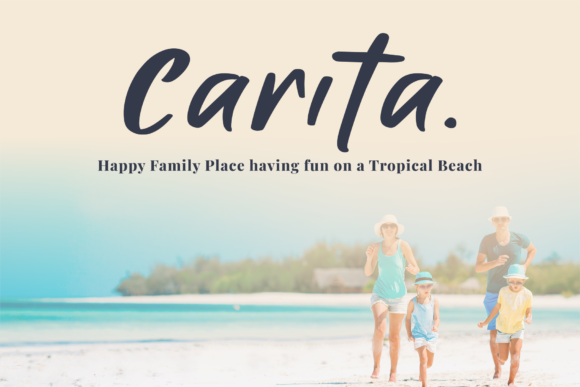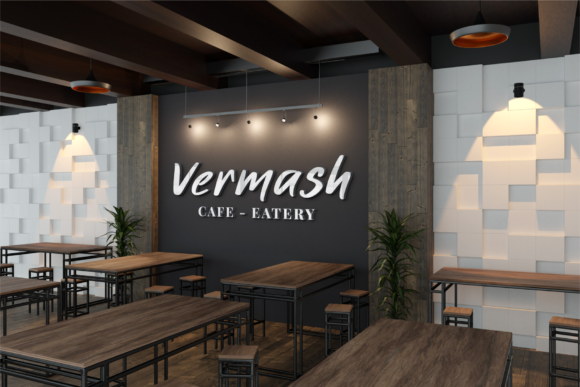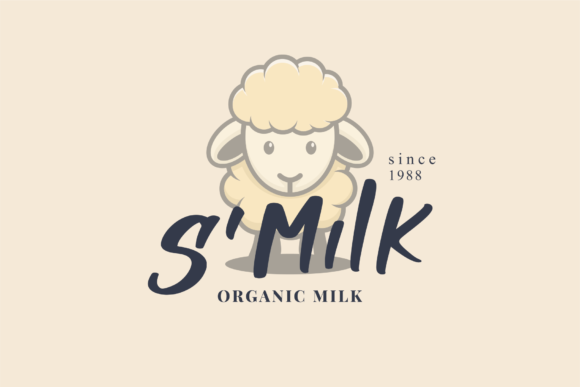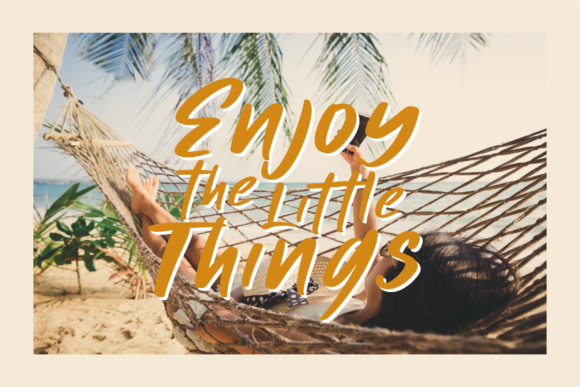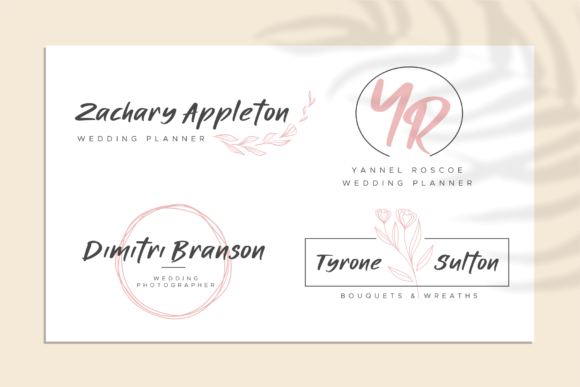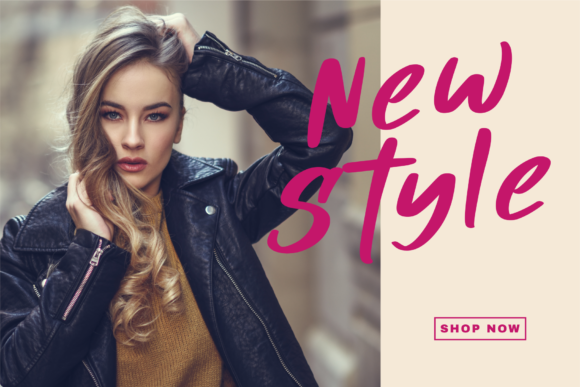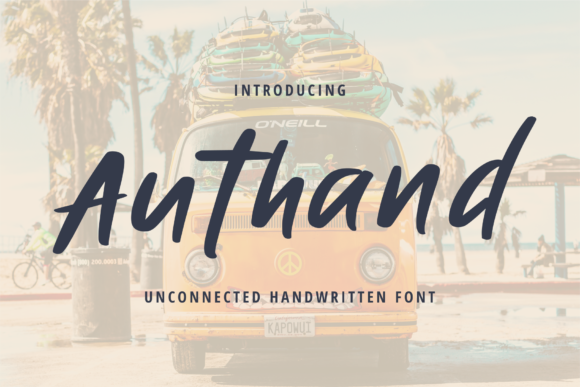
The Designer’s Delight: Authand Font
I’ll never forget the moment I stumbled upon the Authand font. I was working on a project for a client who wanted a personal, handwritten touch. I had spent hours scouring the internet for the perfect font, but nothing seemed quite right. That was until I saw Authand – a simple, yet elegant brushed handwritten font that instantly caught my eye. In this article, I’ll share my experience with Authand, its features, and how to make the most of it in your designs.
So, what makes Authand so special? Here are a few things I love about this font:
- ✨ Effortless elegance: Authand has a way of adding a touch of sophistication to any design.
- ✅ Versatility: Whether you’re working on a logo, a poster, or a social media graphic, Authand fits right in.
- 💫 Unique character: Each letter has a distinct personality, making your text stand out from the crowd.
Of course, no font is perfect, and Authand has a few quirks:
- 🤔 Limited multilingual support: While Authand covers the basics, it may not support every language or character set.
- ⚠️ Some letter combinations: Occasionally, certain letter combinations may not flow as smoothly as you’d like.
The Story Behind Authand
While the true story behind Authand remains a mystery, it’s easy to imagine that it was created by a designer who wanted to craft a font that would bring a touch of warmth and personality to any design. Perhaps they drew inspiration from the beautiful, imperfect handwriting of loved ones or the elegant strokes of calligraphy.
- Q: What type of projects is Authand best suited for?
- A: Authand is versatile and can be used in a variety of projects, from logos and branding to social media graphics and posters.
- Q: Is Authand a difficult font to read?
- A: No, Authand is generally easy to read, making it perfect for body text and headlines.